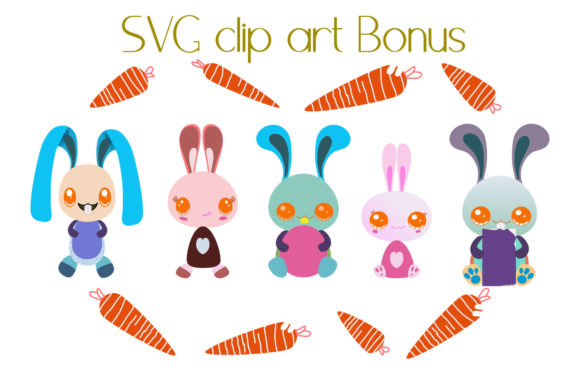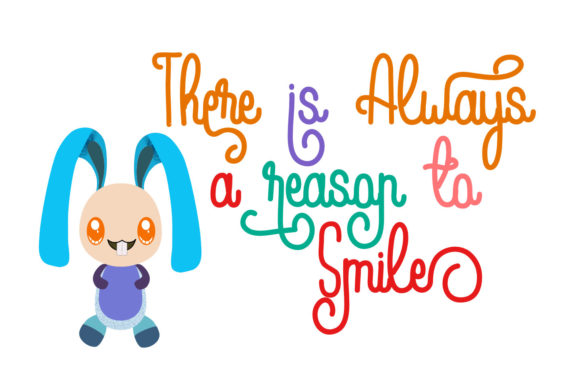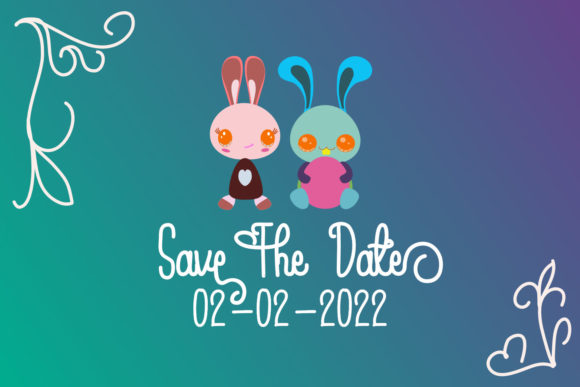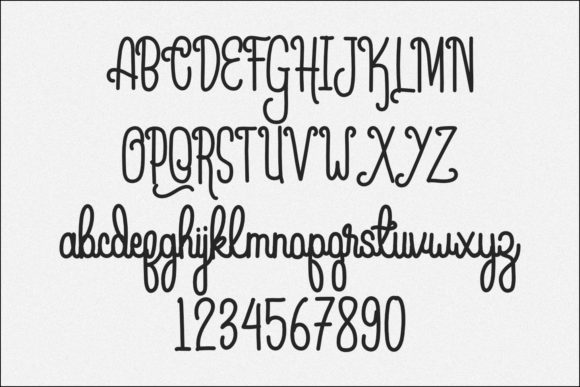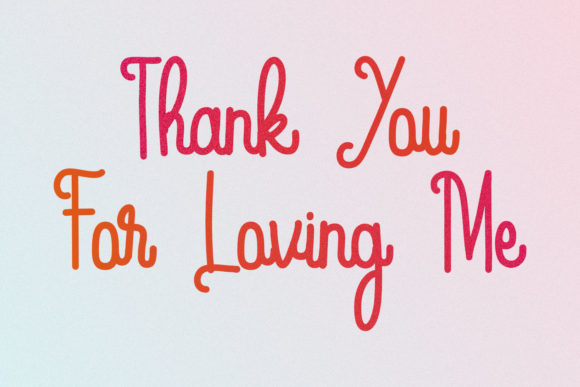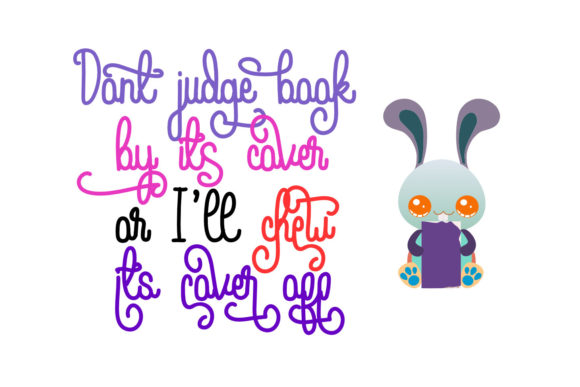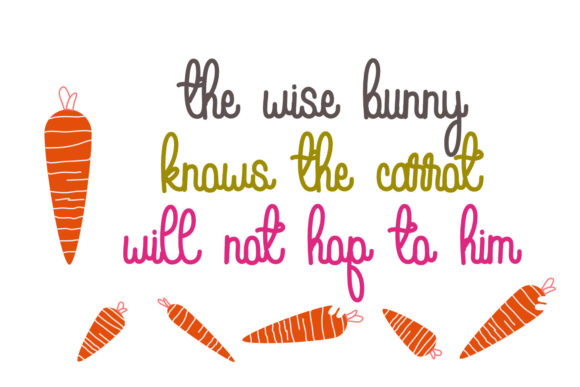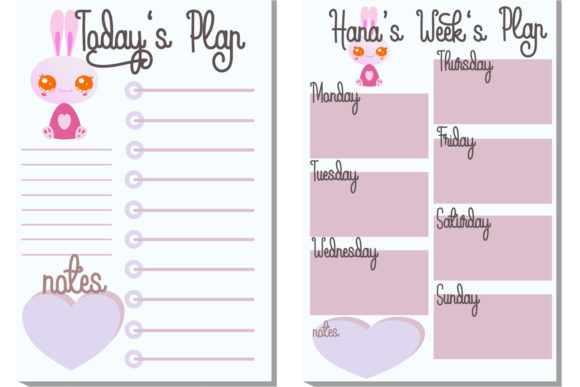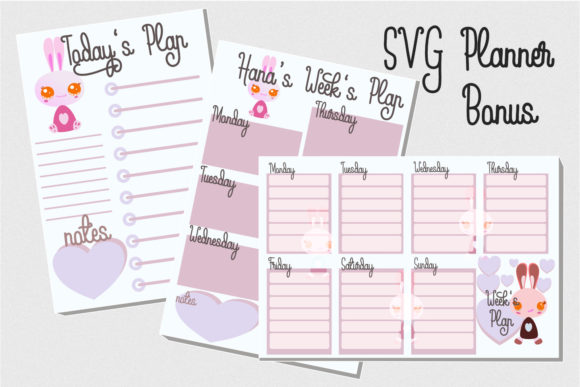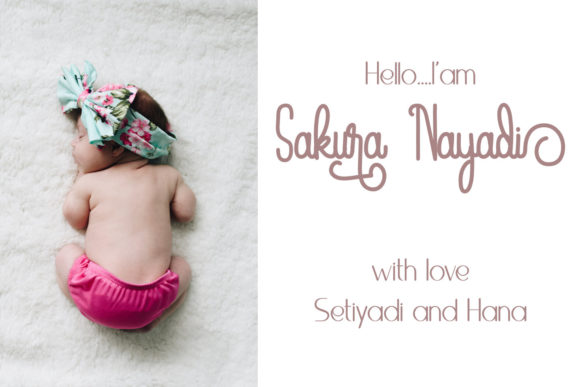
Hana Love Font
About Hana Love Font
Hana Love is a gorgeous script font. It features amazing swashes and bunnies’ clipart, that will give your projects an outstanding look!